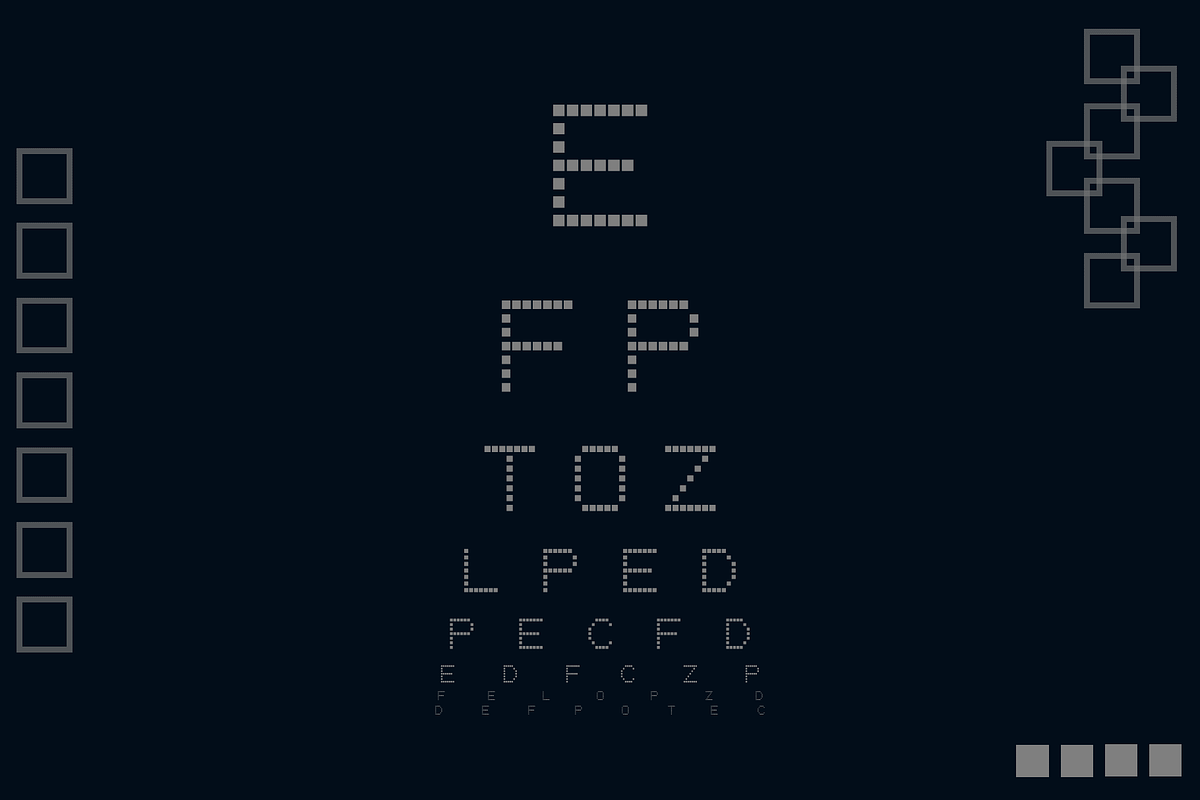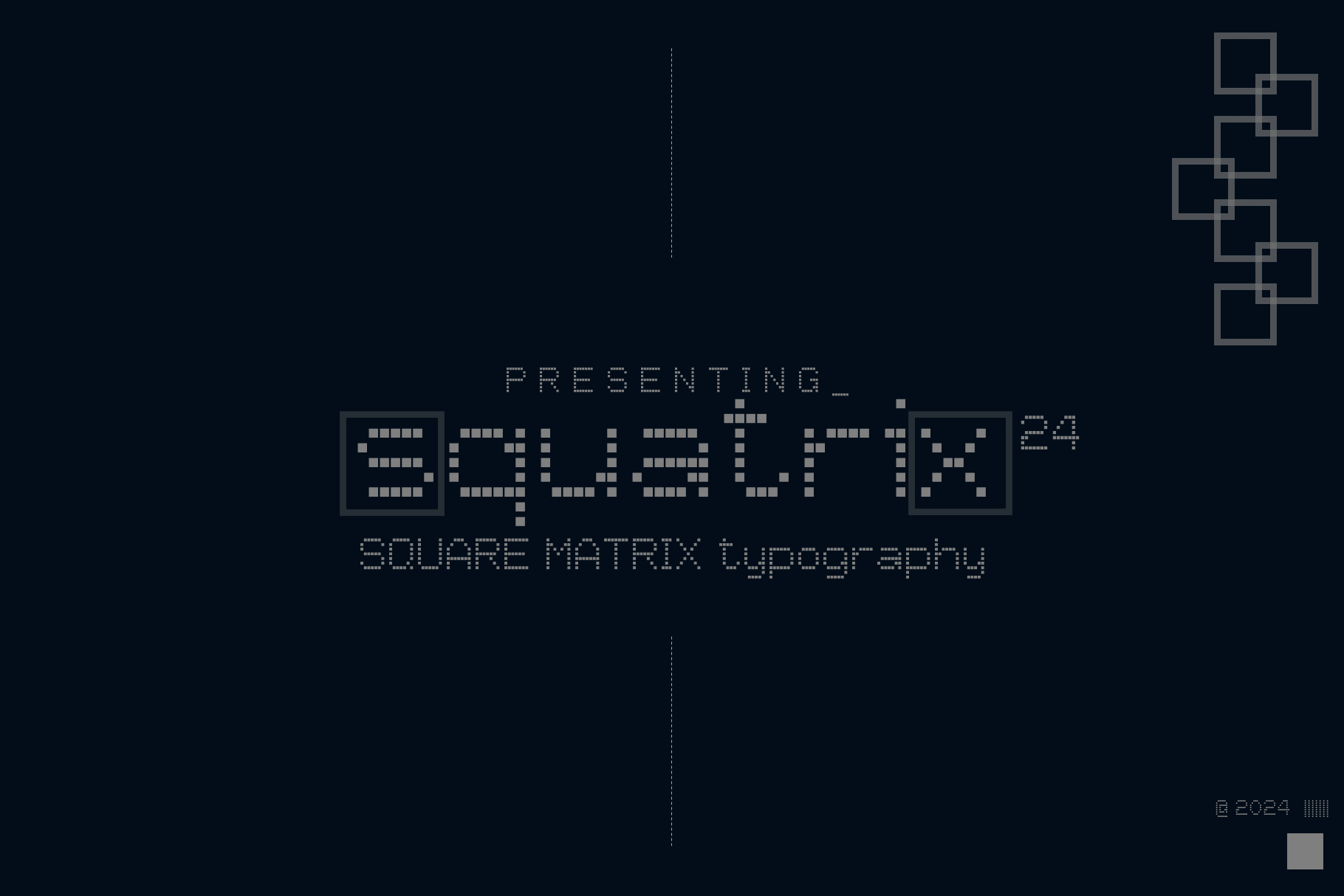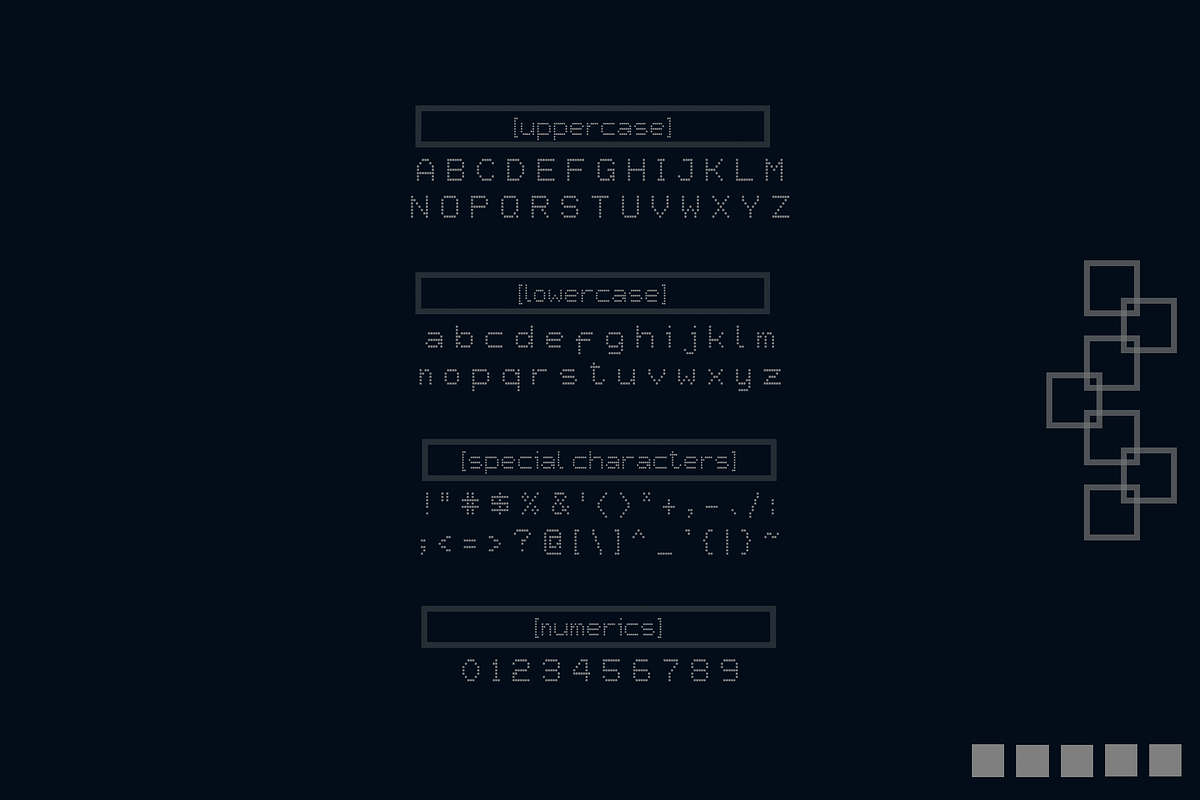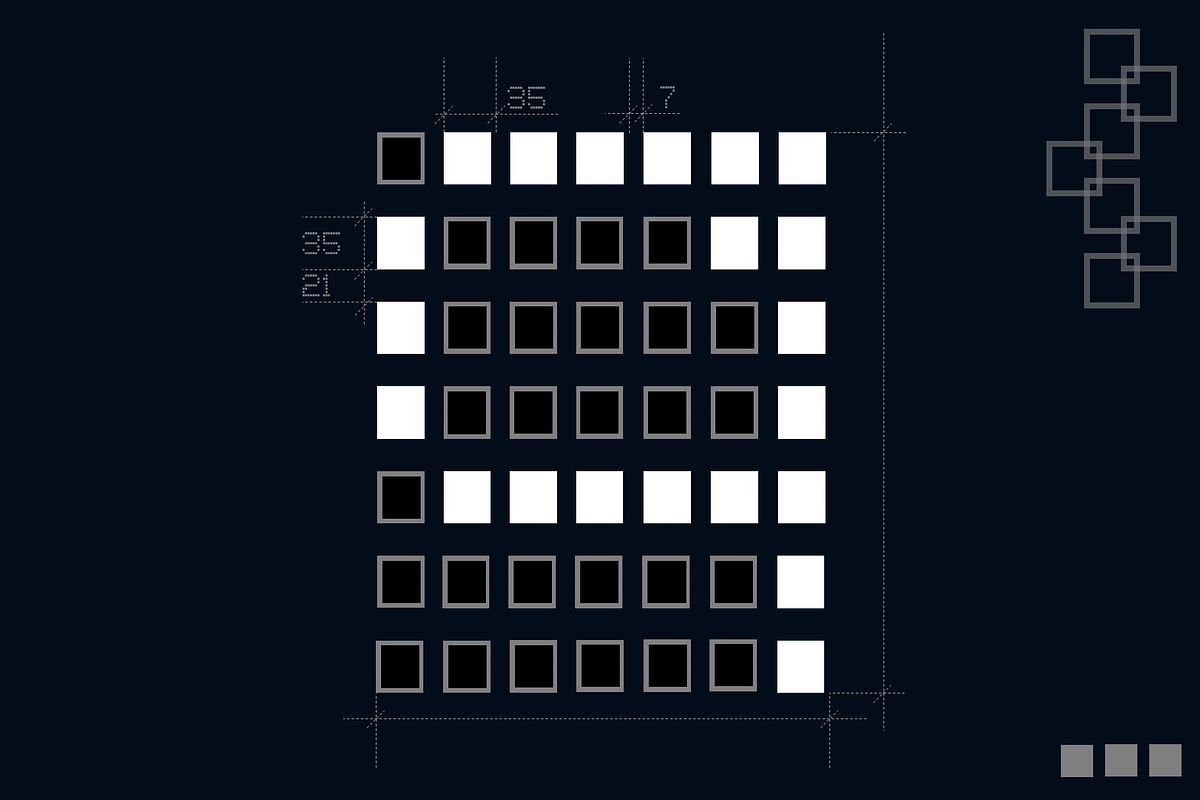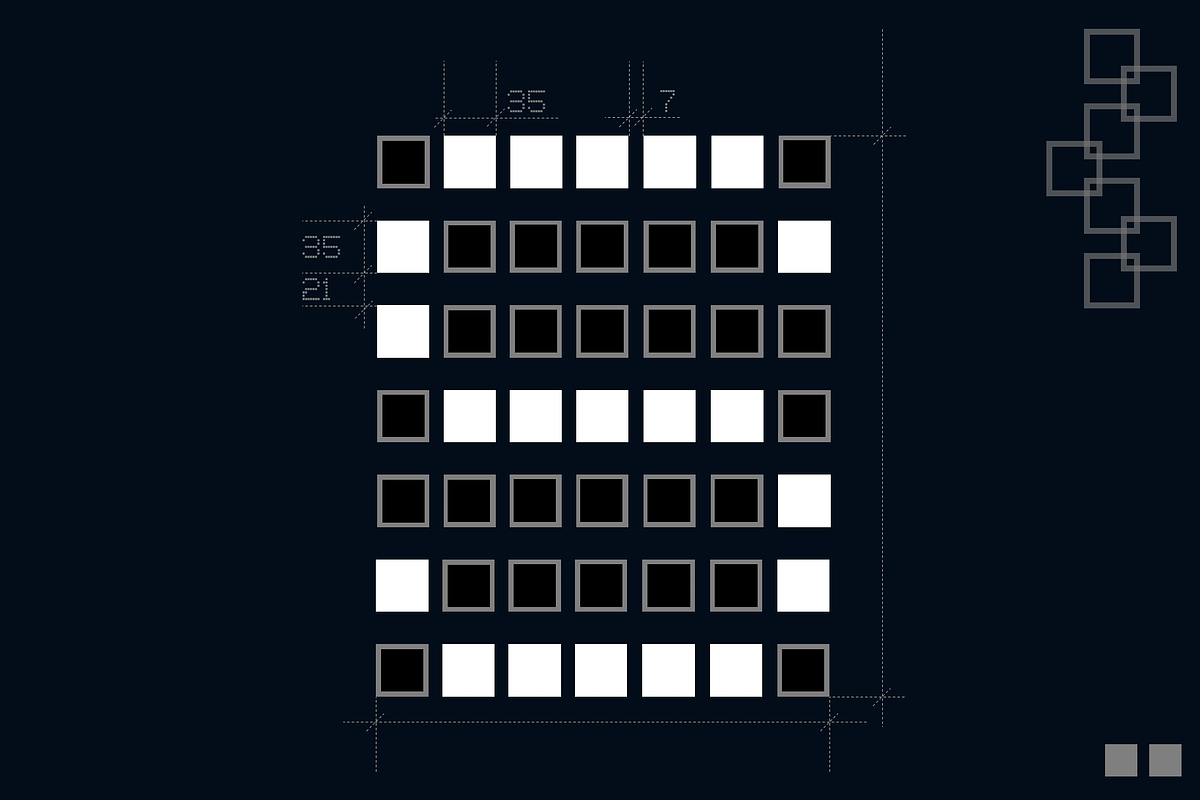
squatrix24 font
Squatrix is an abbreviation of Square Matrix. Square Matrix is a matrix typography that have the same edge length. Each character is formed by turning on or off individual squares within a grid. The fonts can be used for various applications, including: Printers, Electronic Displays, Signage, Programming and Command Line Interfaces, Retro Graphics and Art or Barcodes.
When using square matrix fonts, it's important to consider the resolution and size of the squares, as this will affect the clarity and readability of the characters. Additionally, square matrix fonts are often proportional, meaning each character takes up the different horizontal space, which can be advantageous in certain applications.